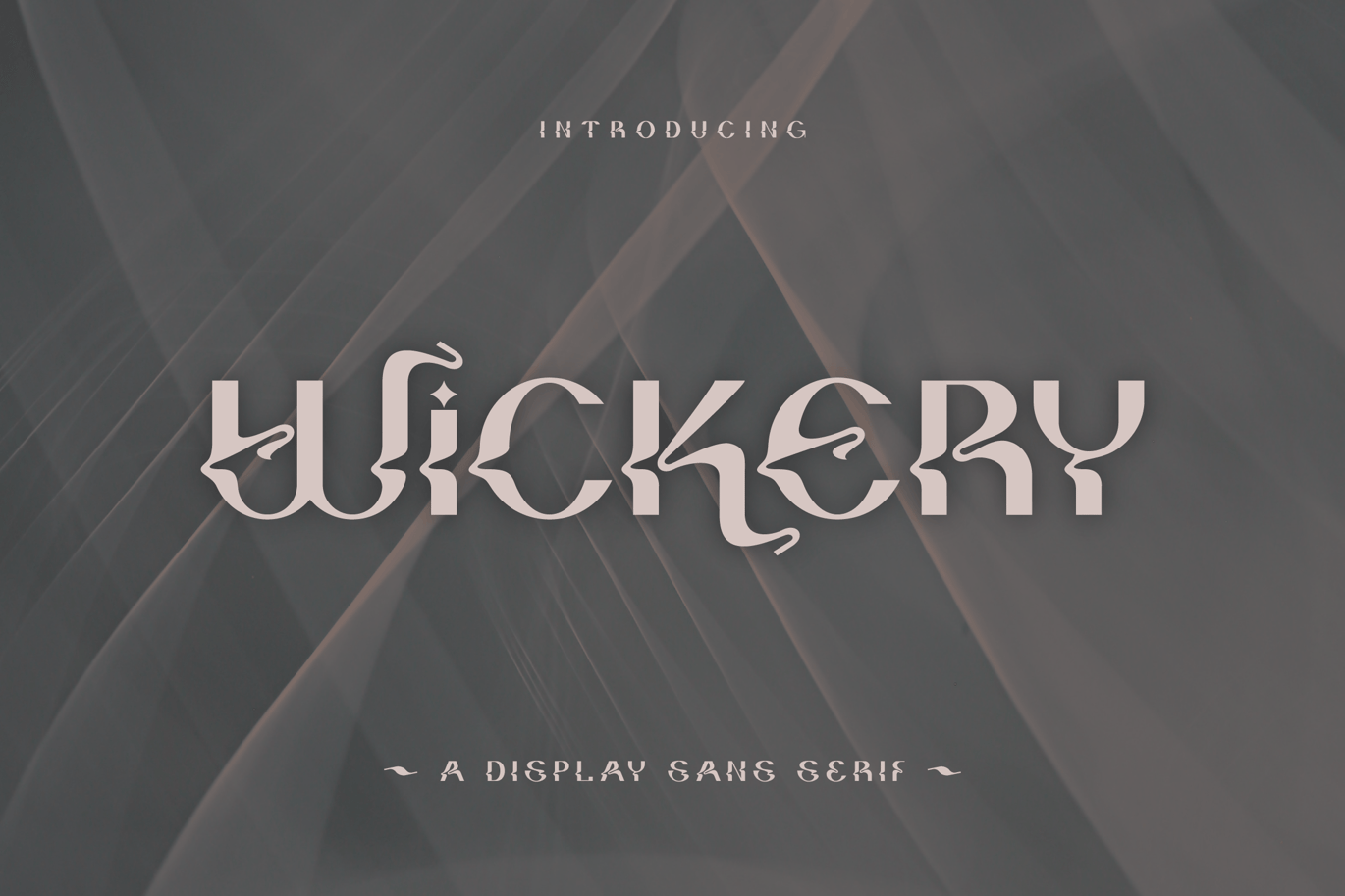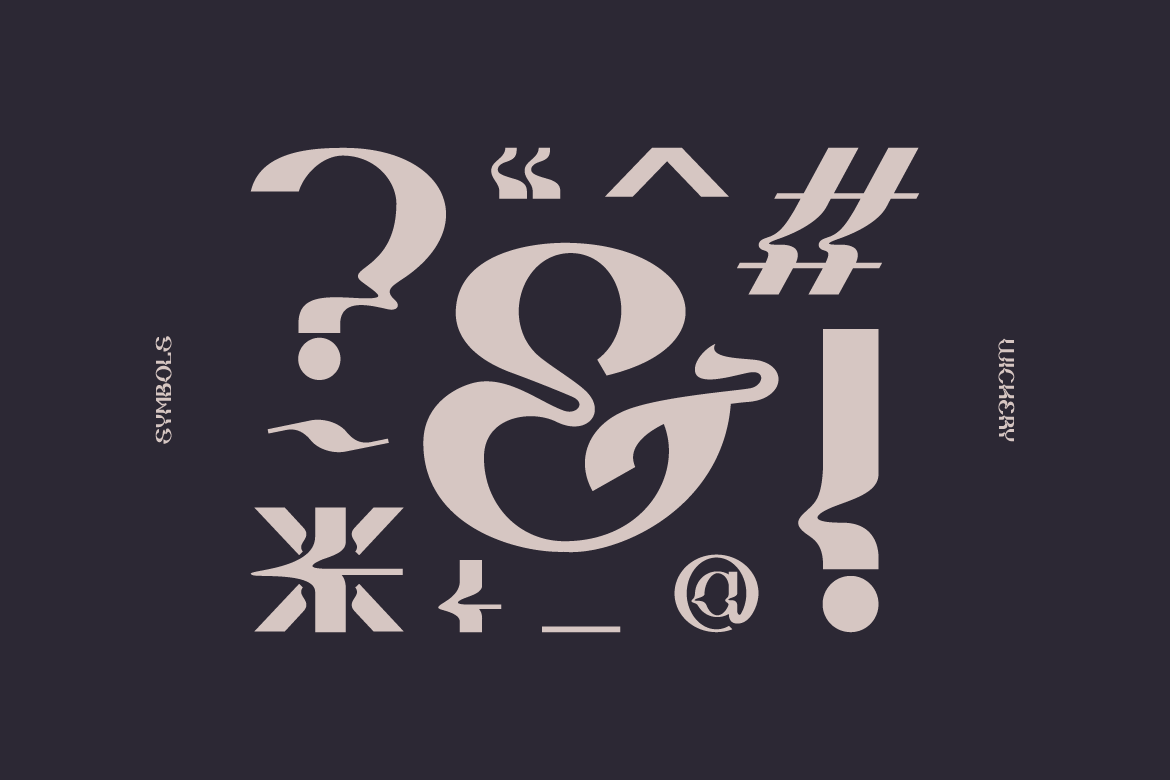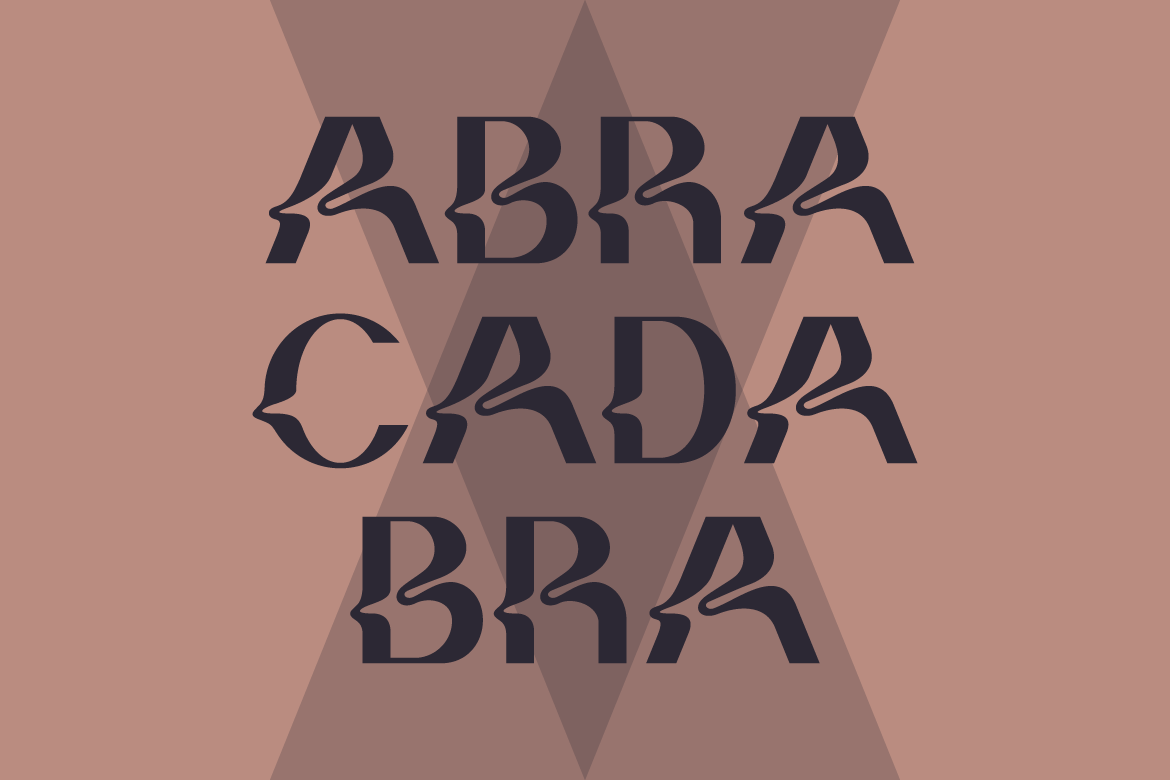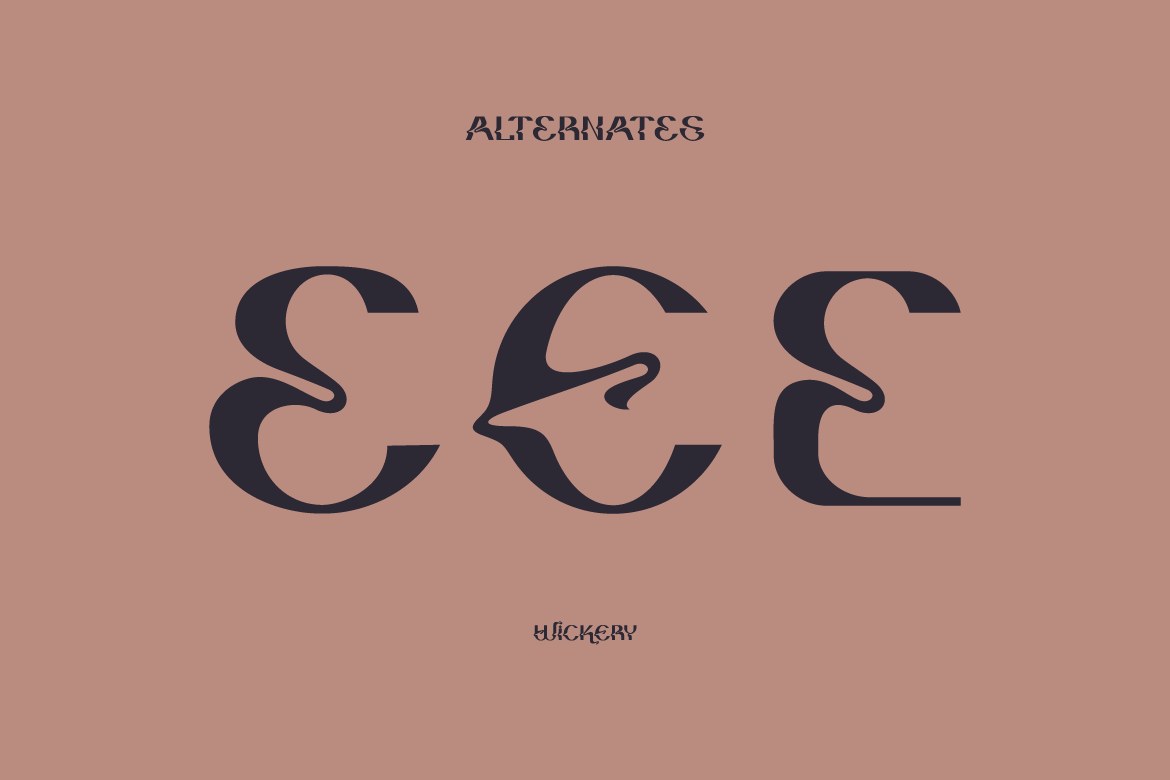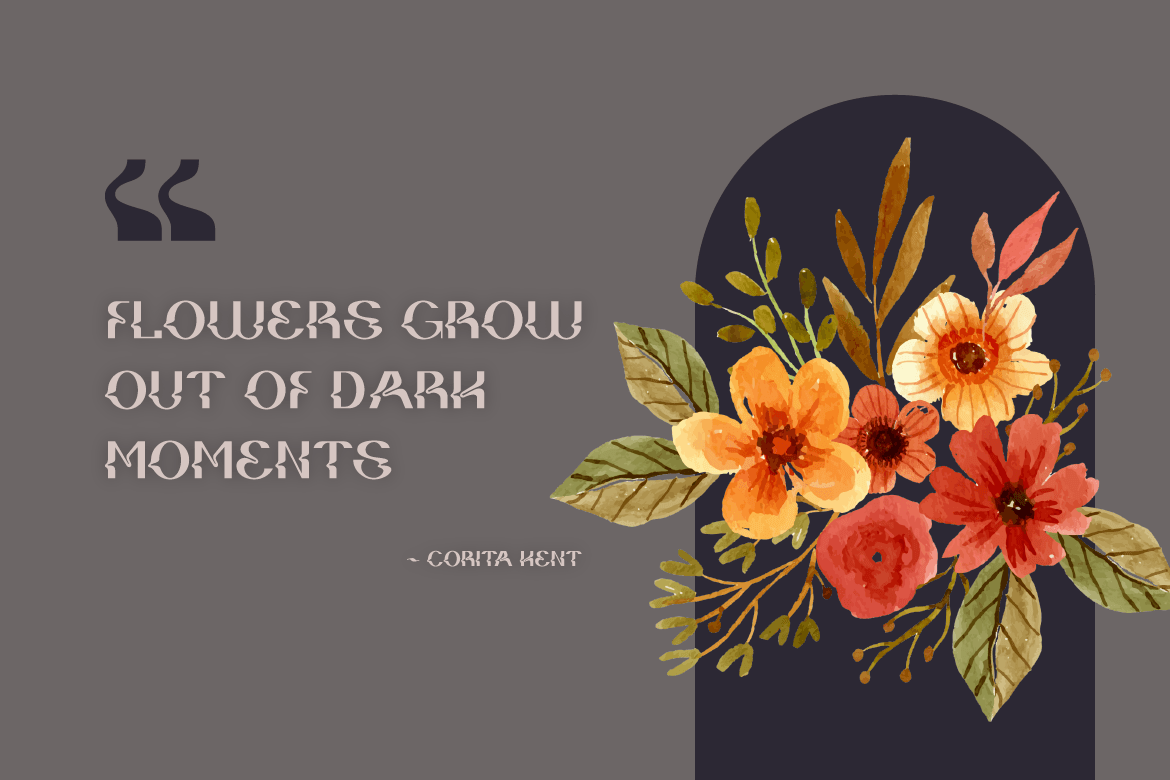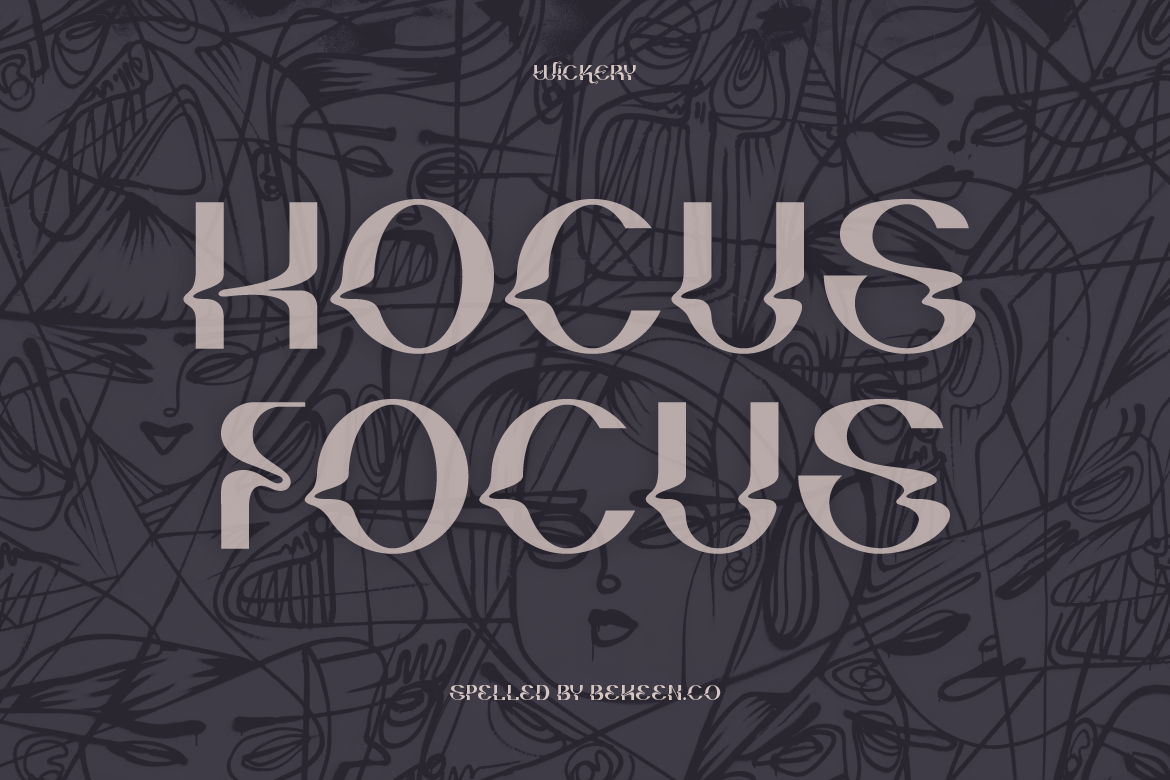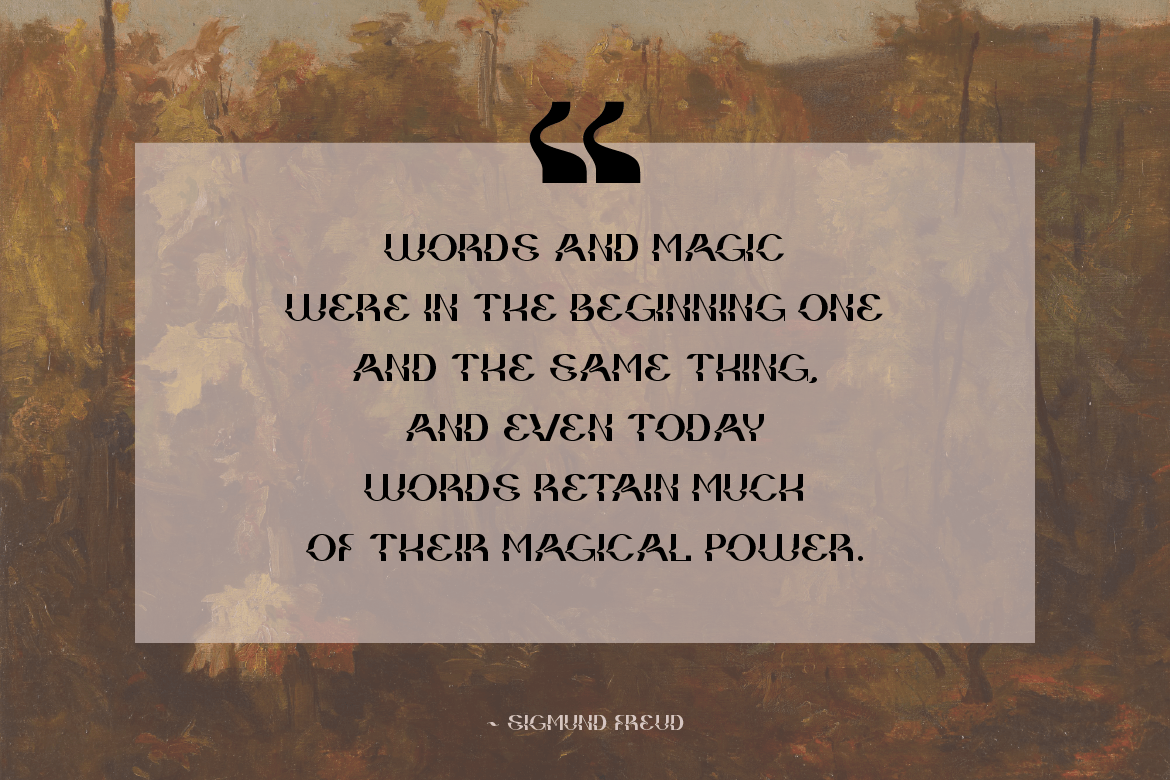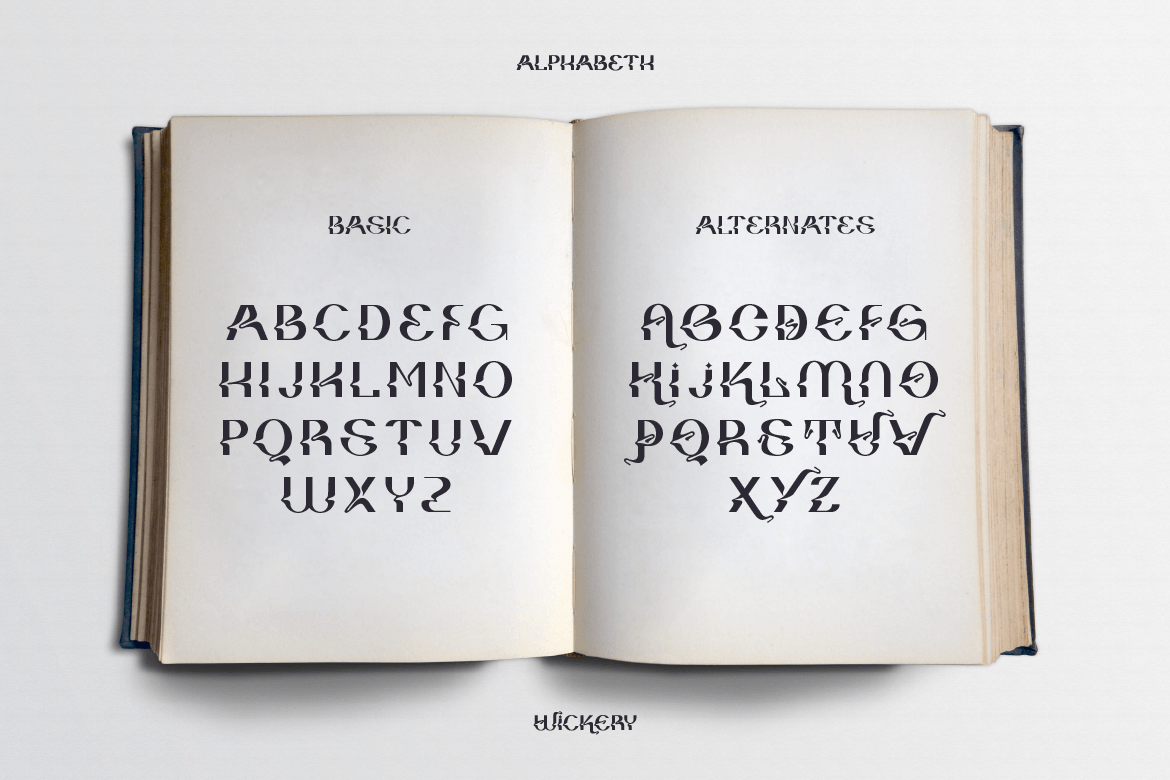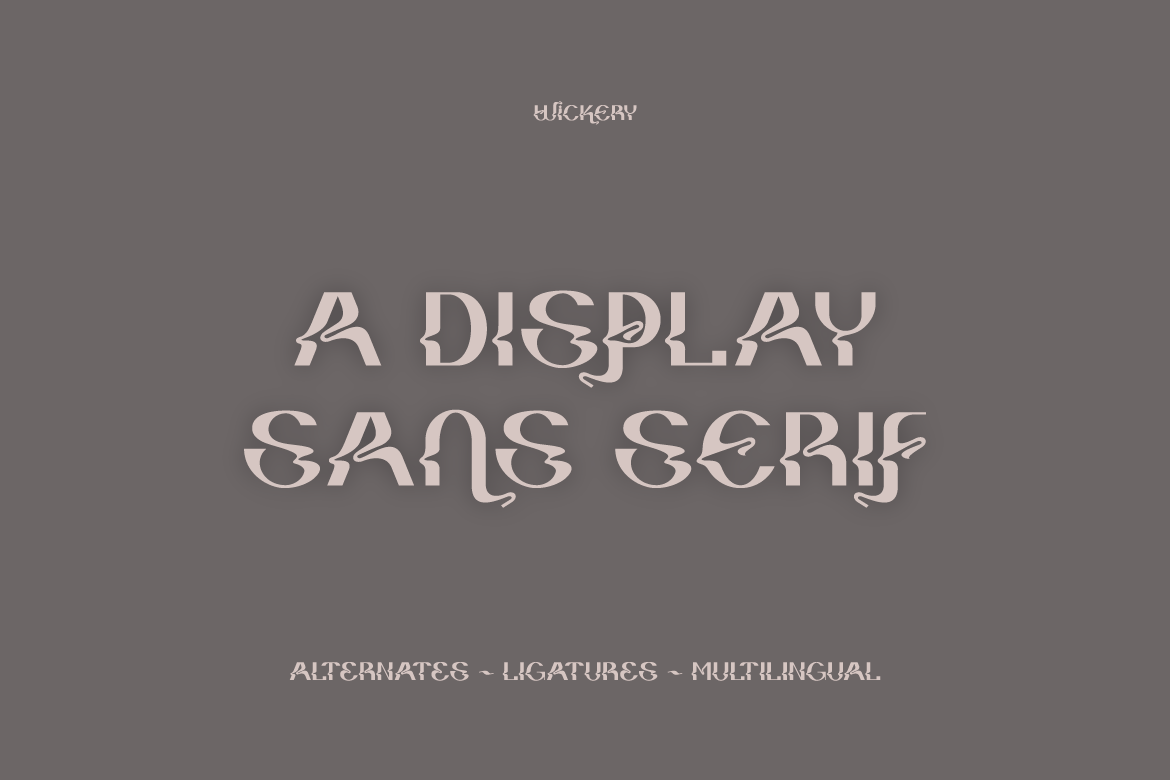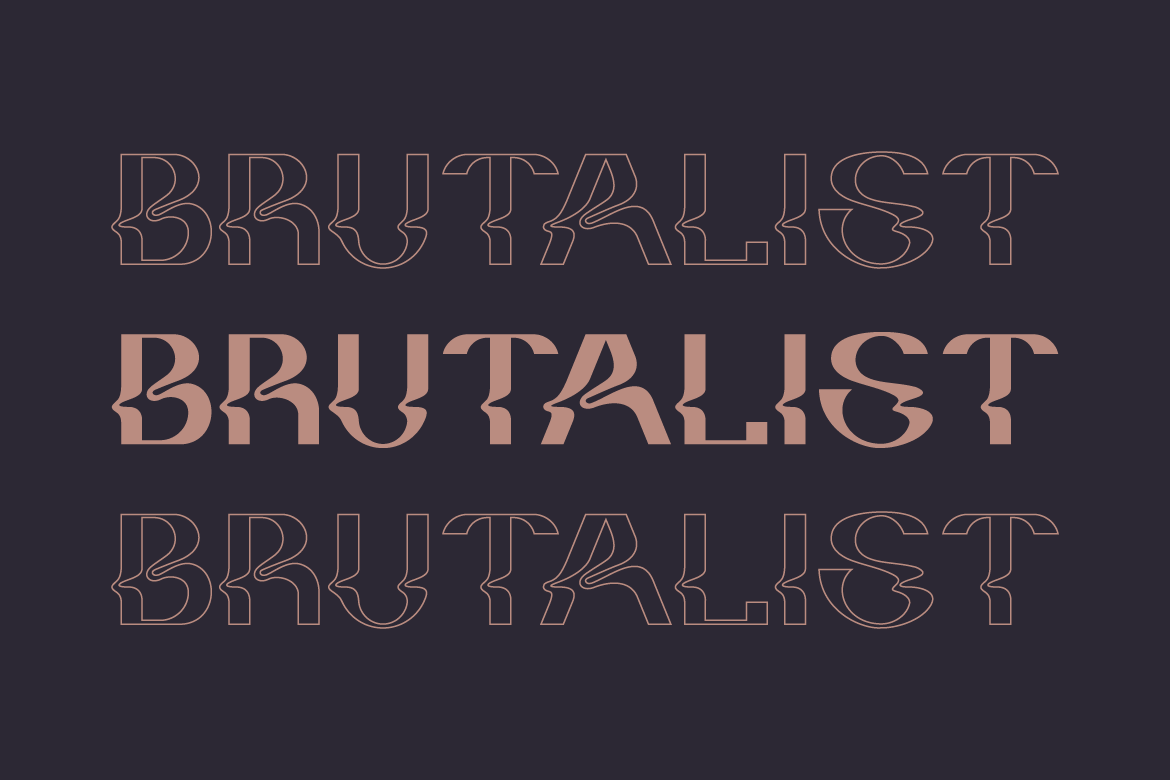
Brutalism Font
Wickery is a display typeface inspired by the brutalism style. It has modern yet whimsical will bring you to the magical world. Wickery would be perfect for posters, advertisements, labels, and more.